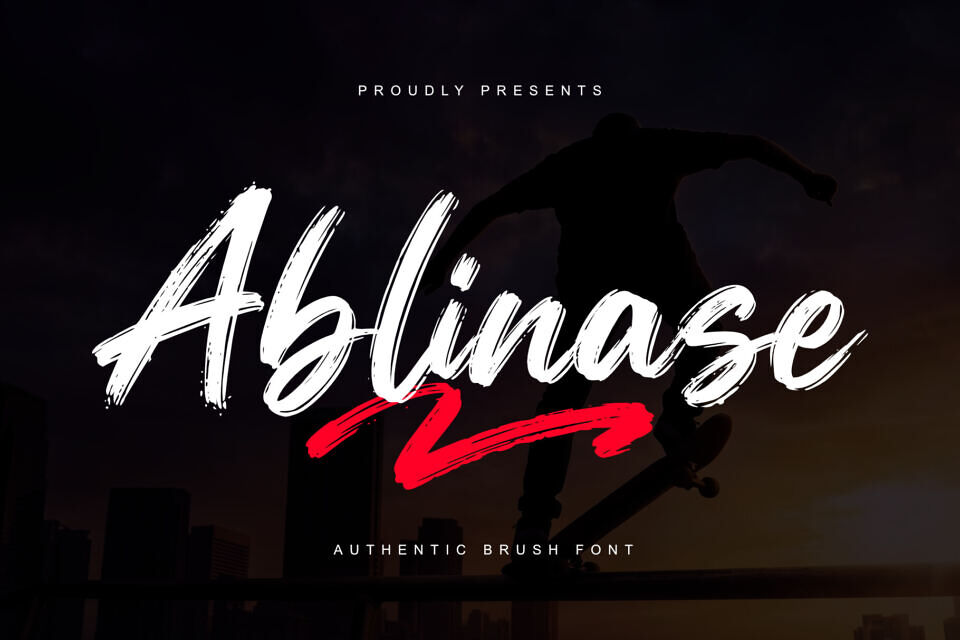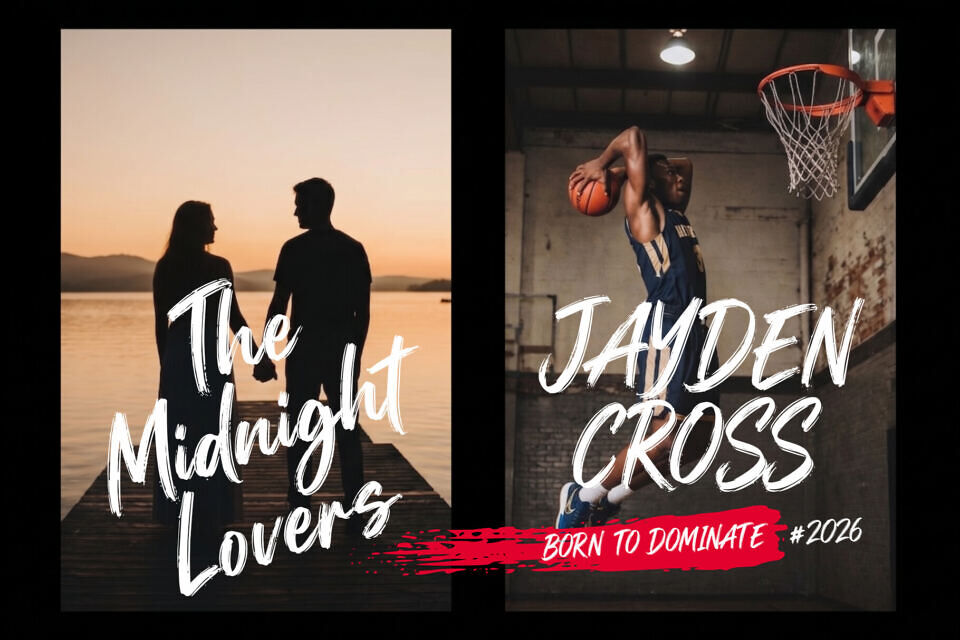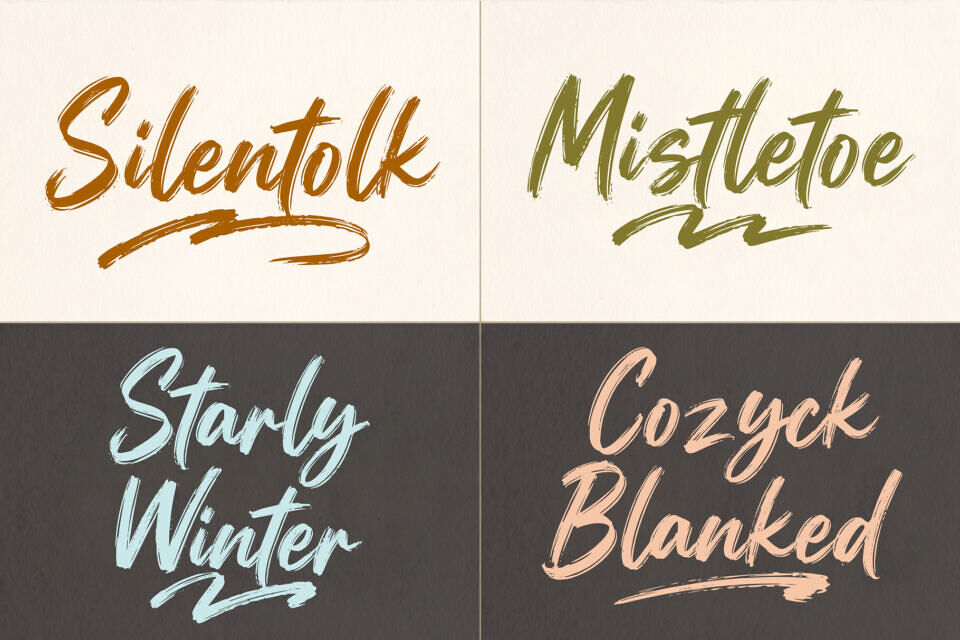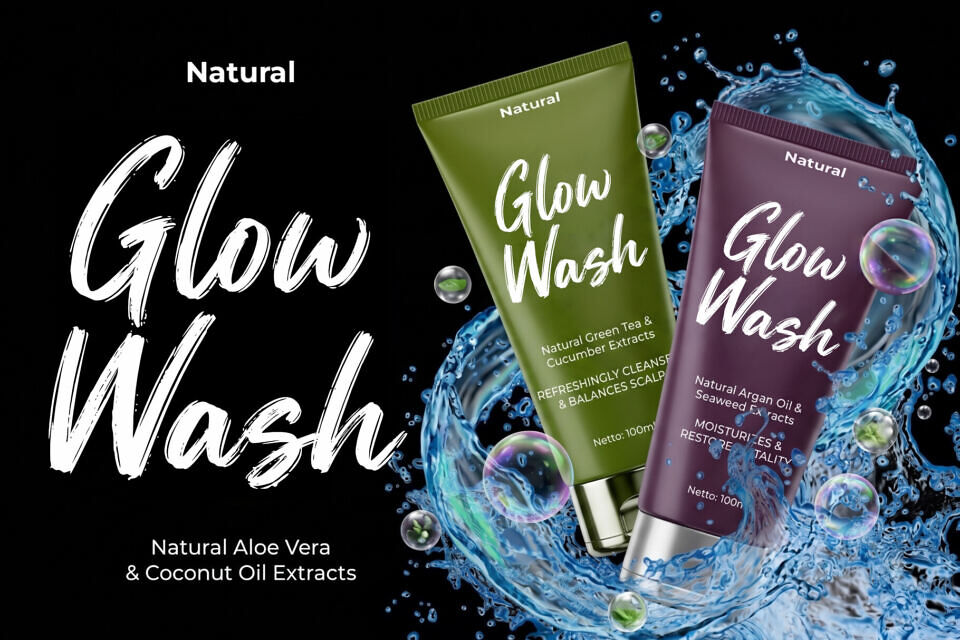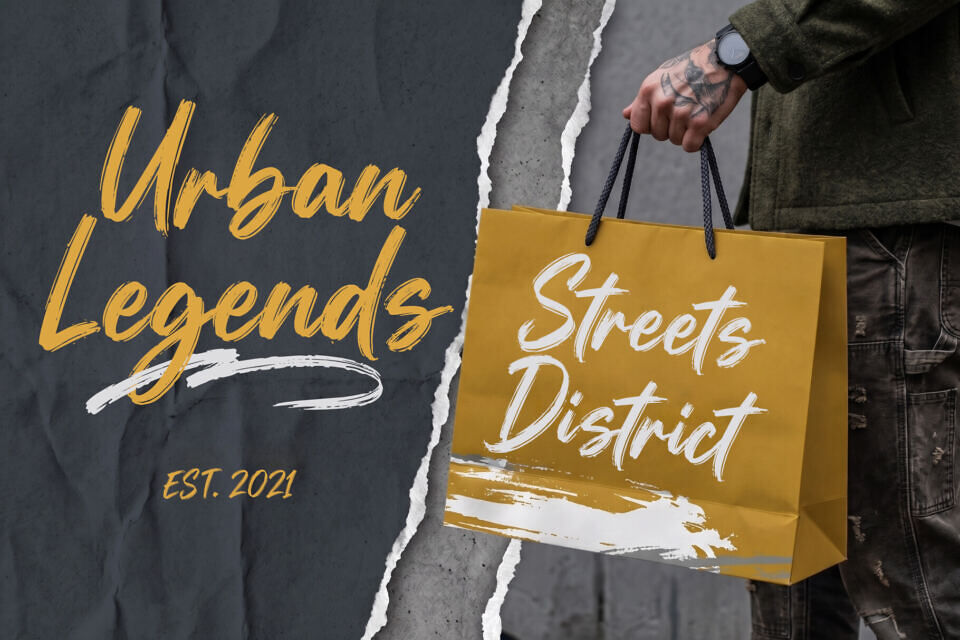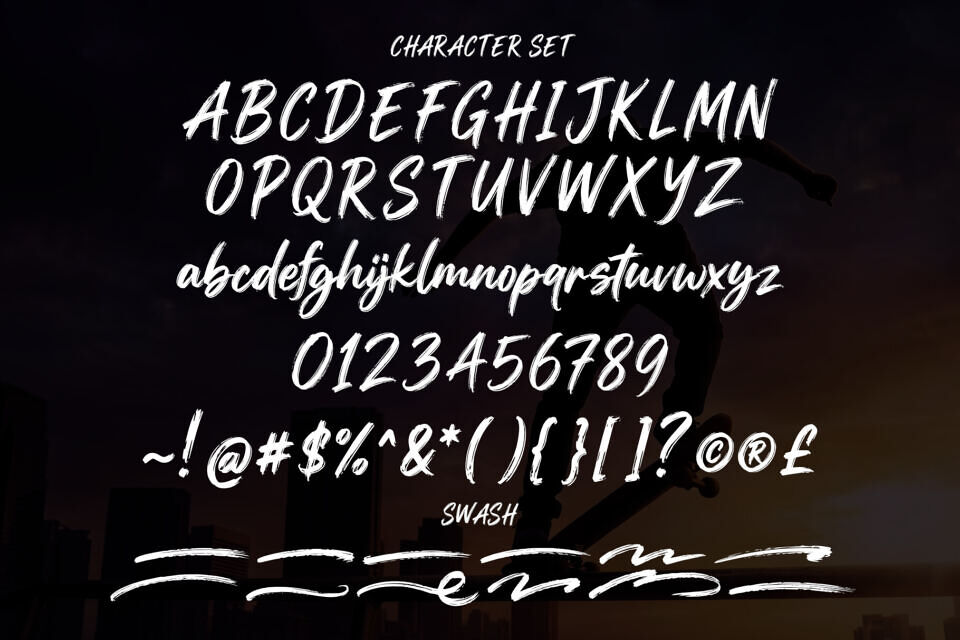
Ablinase Font
Ablinase is a bold brush font featuring strong strokes and a natural hand-painted texture. Built with a dynamic flow and rough details, it delivers a striking and authentic visual impact.
This typeface is designed to stand out in a wide range of creative projects, combining expressive letterforms with a modern and energetic style.